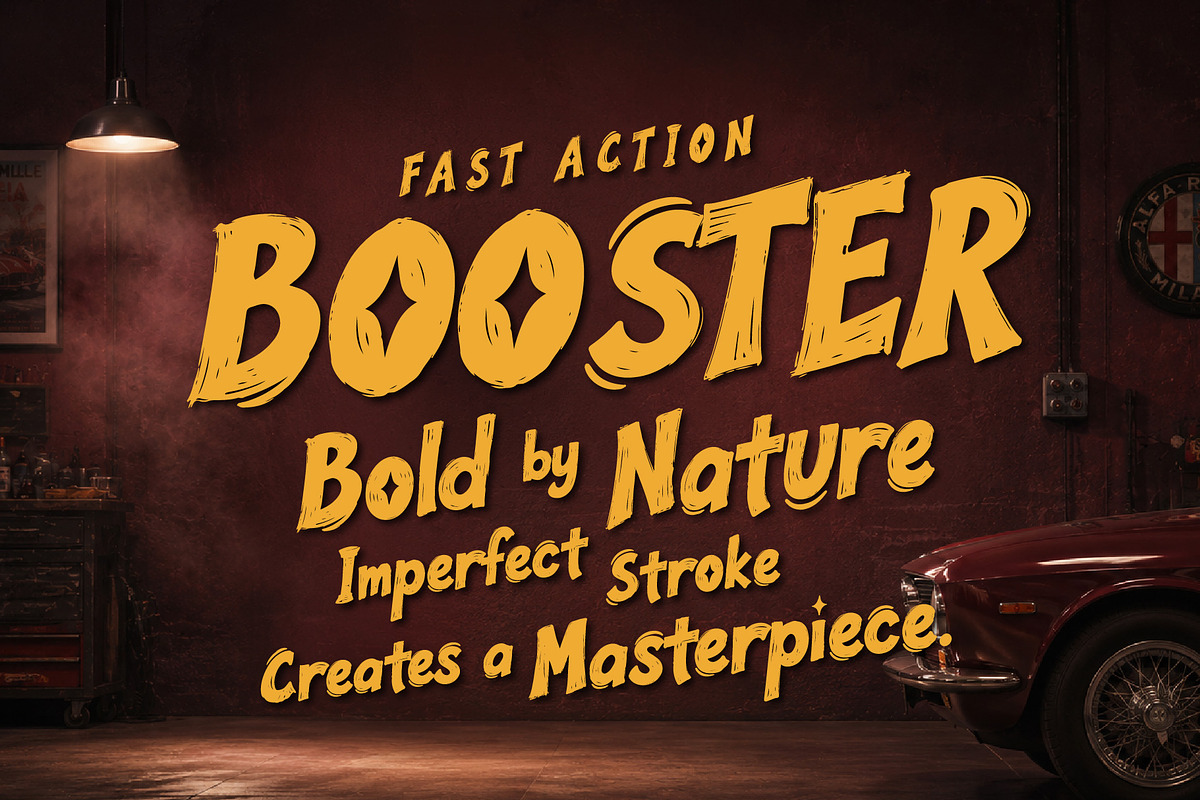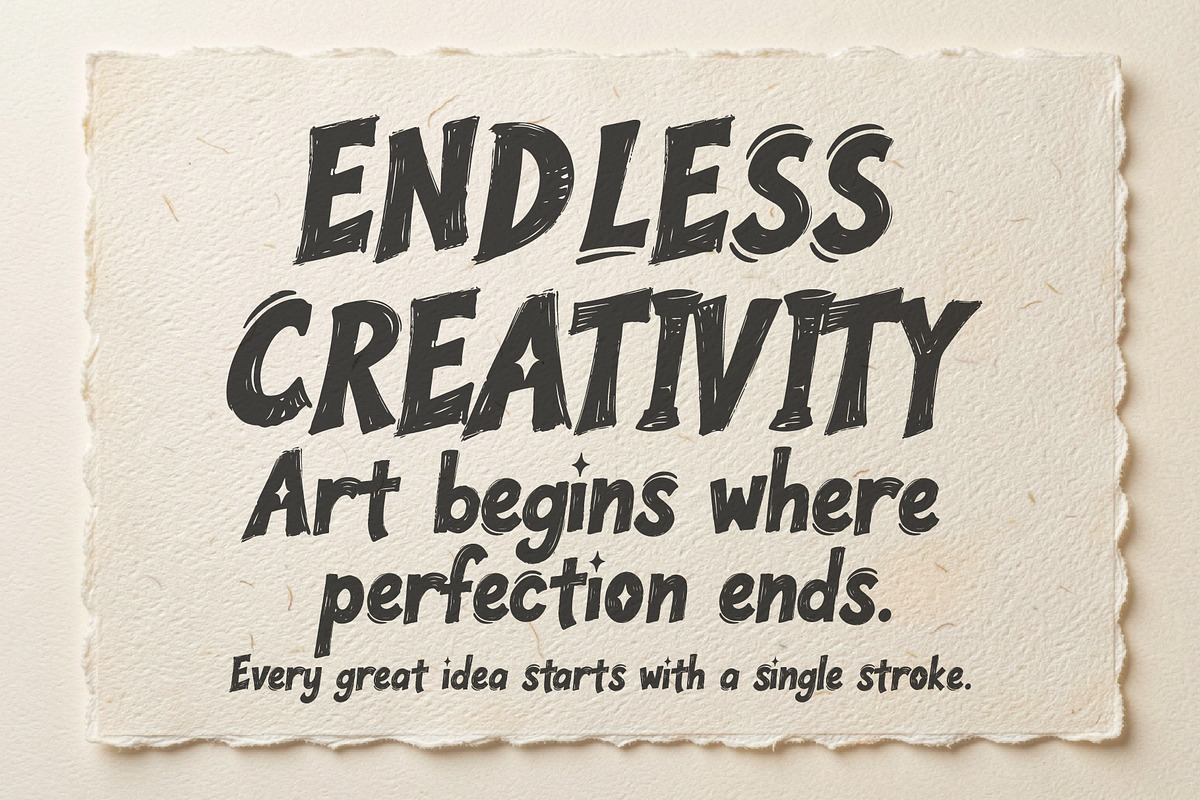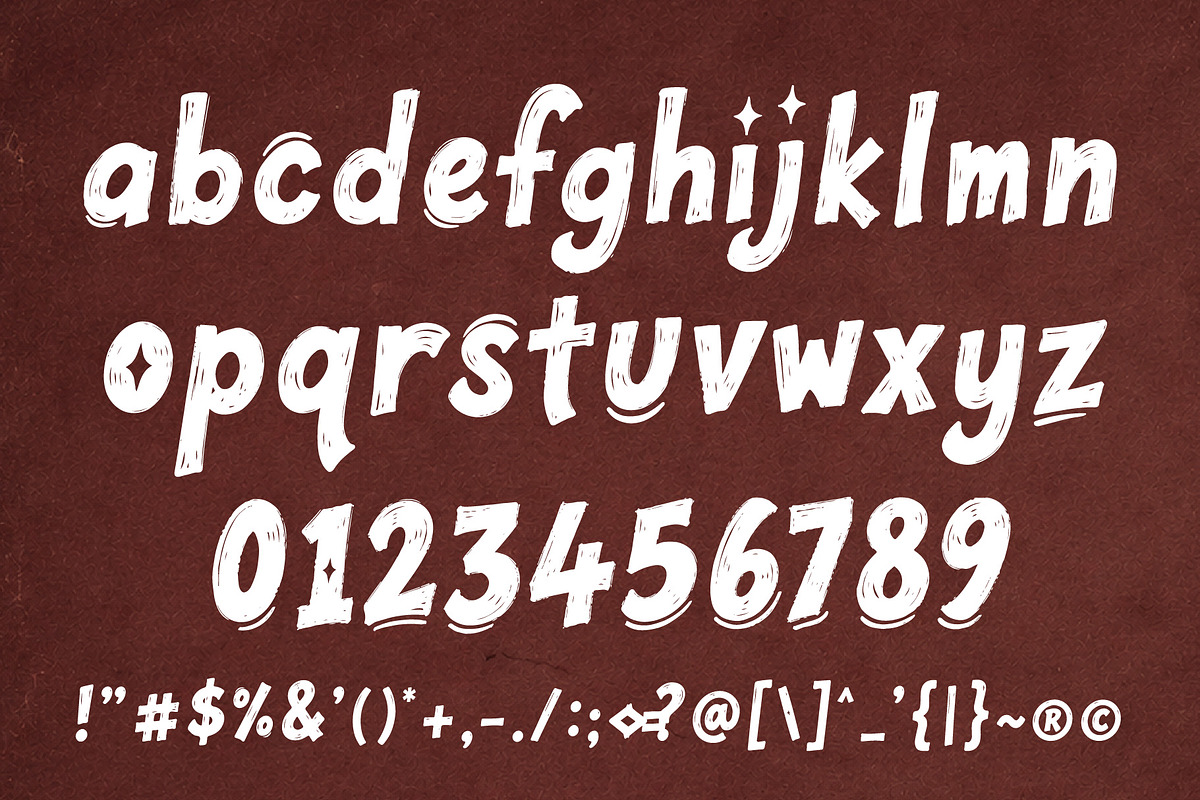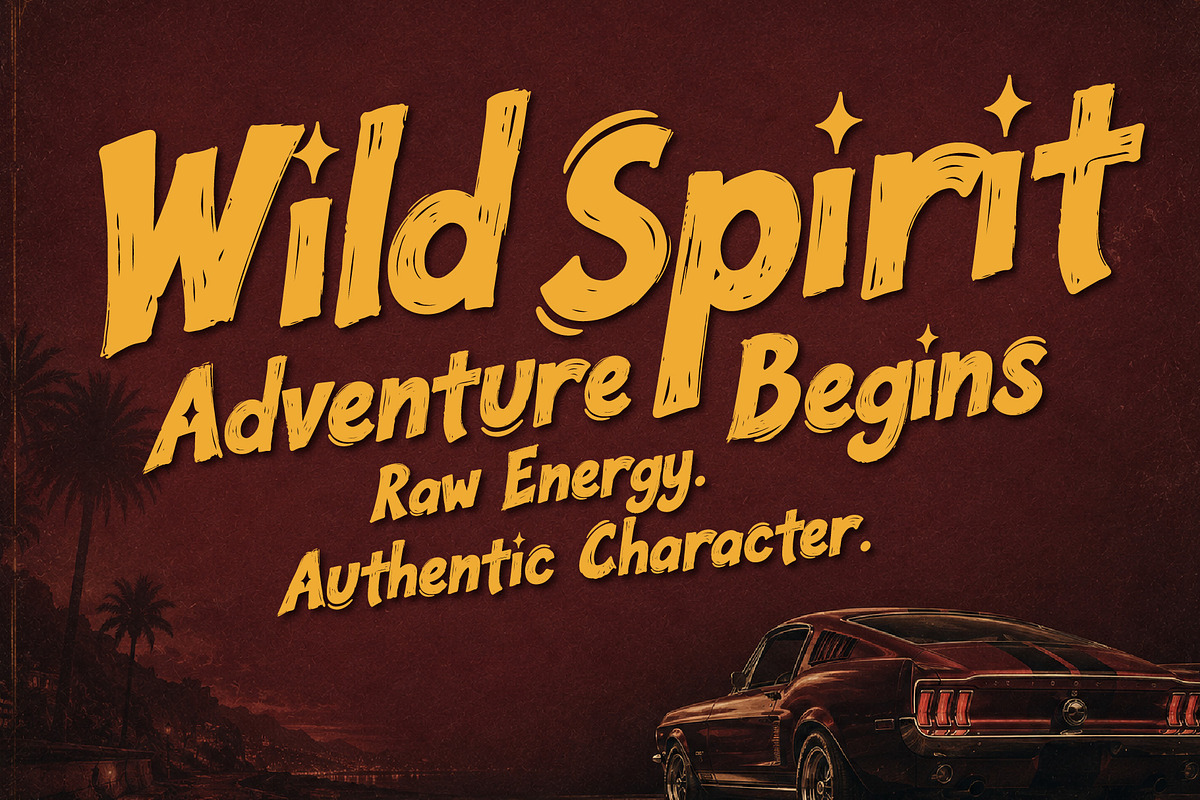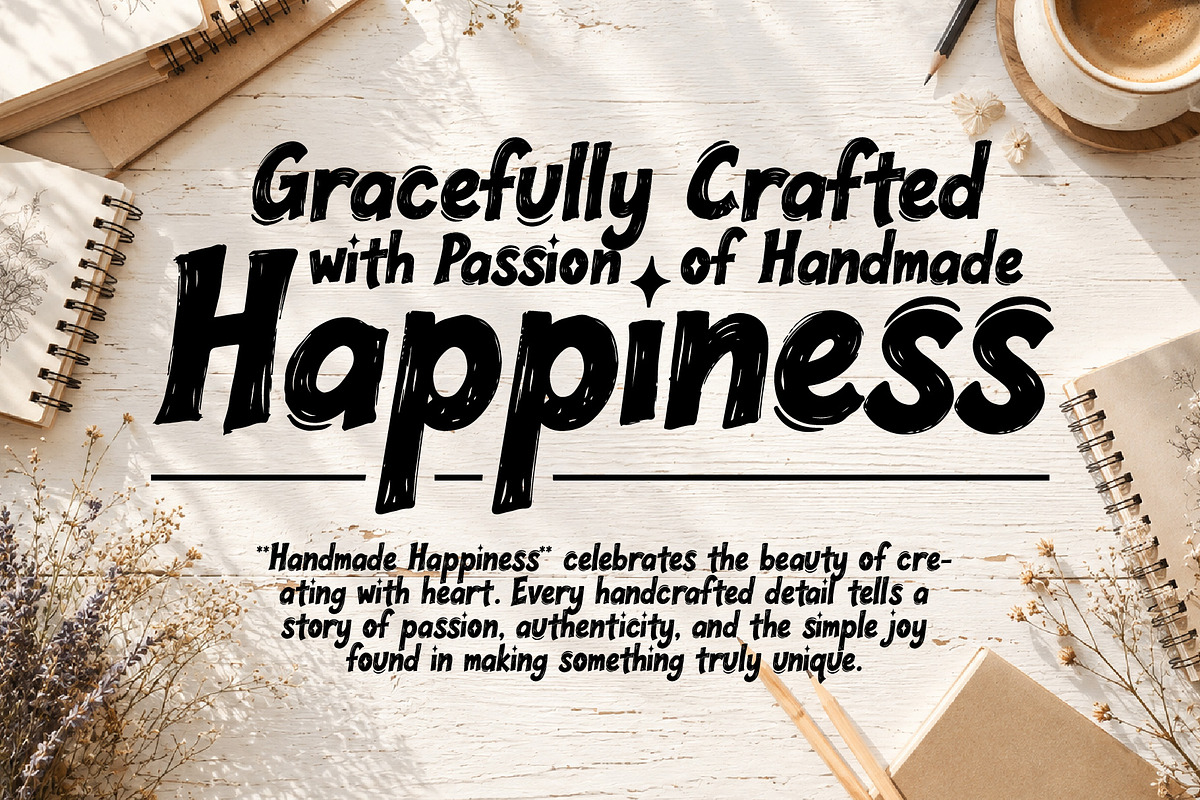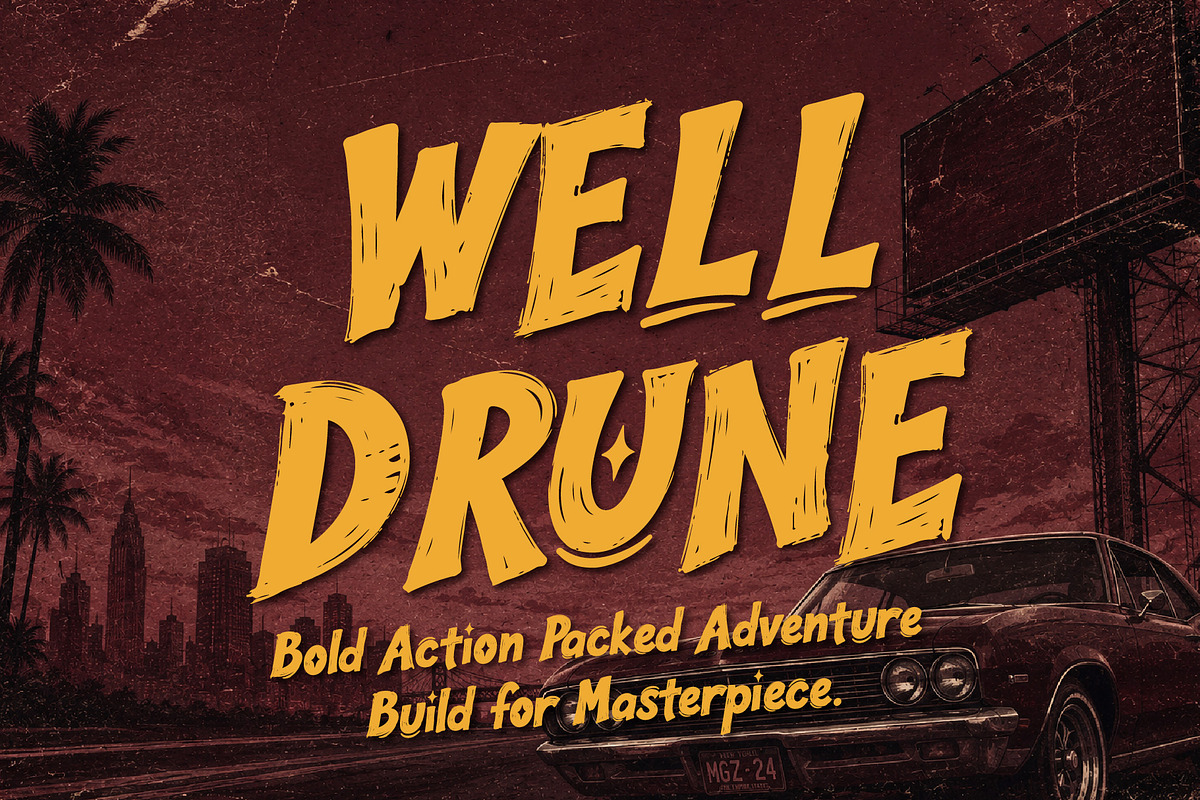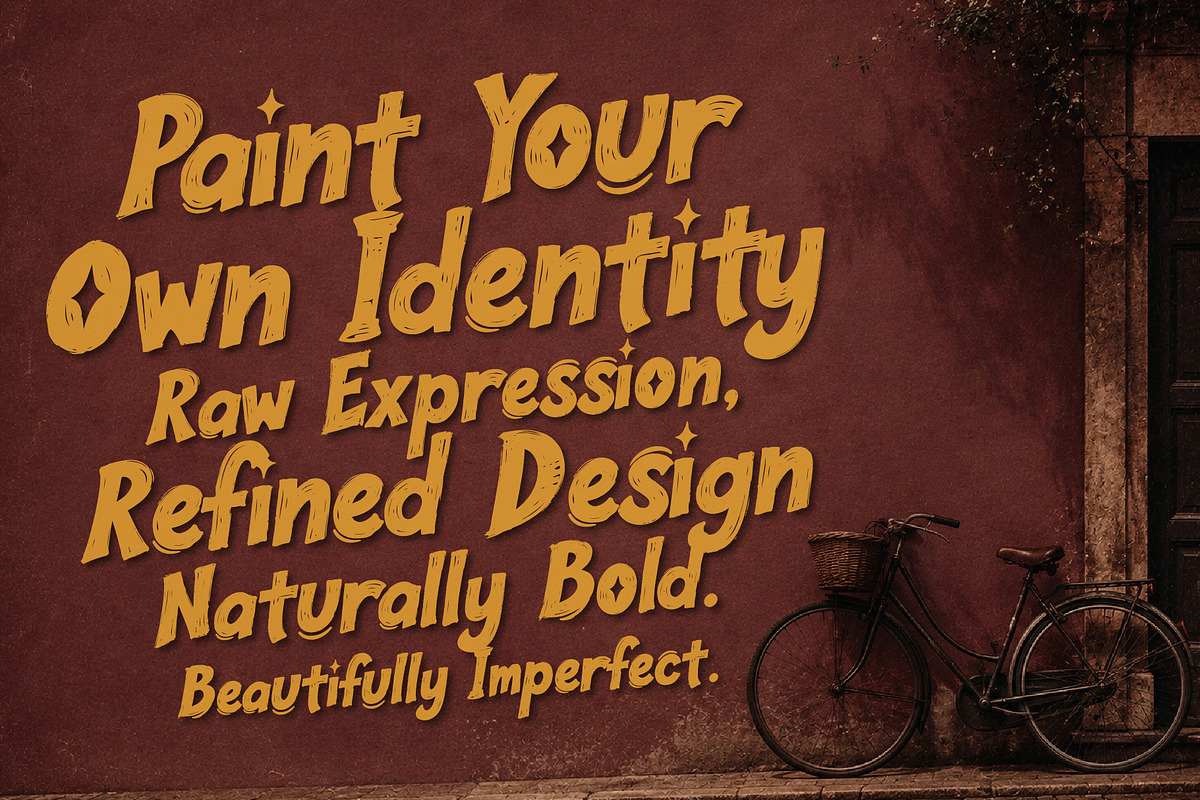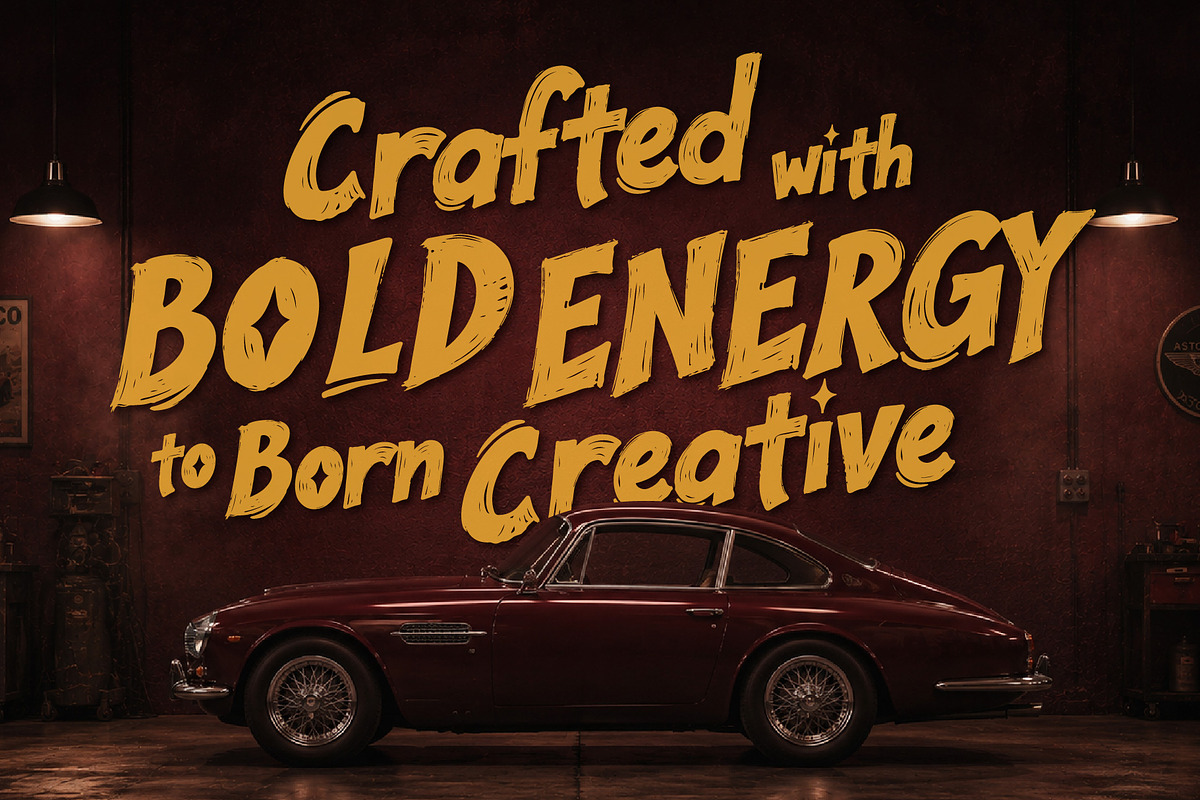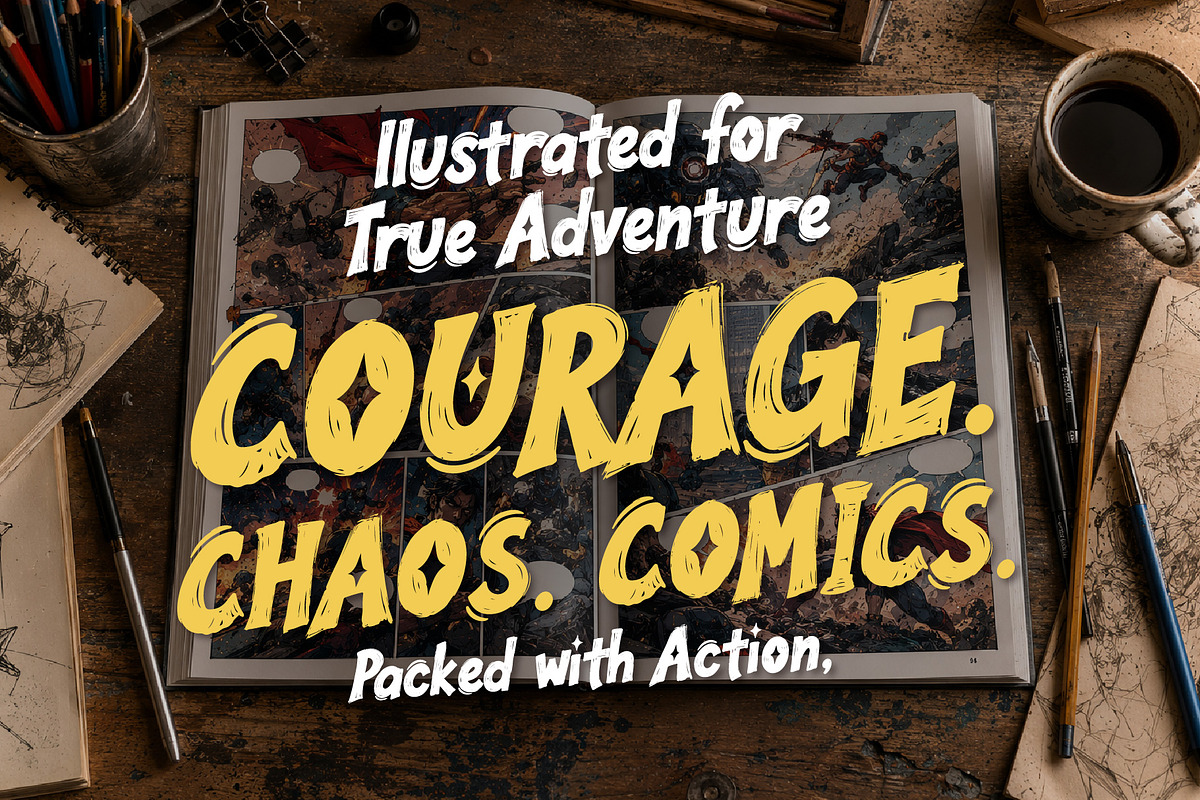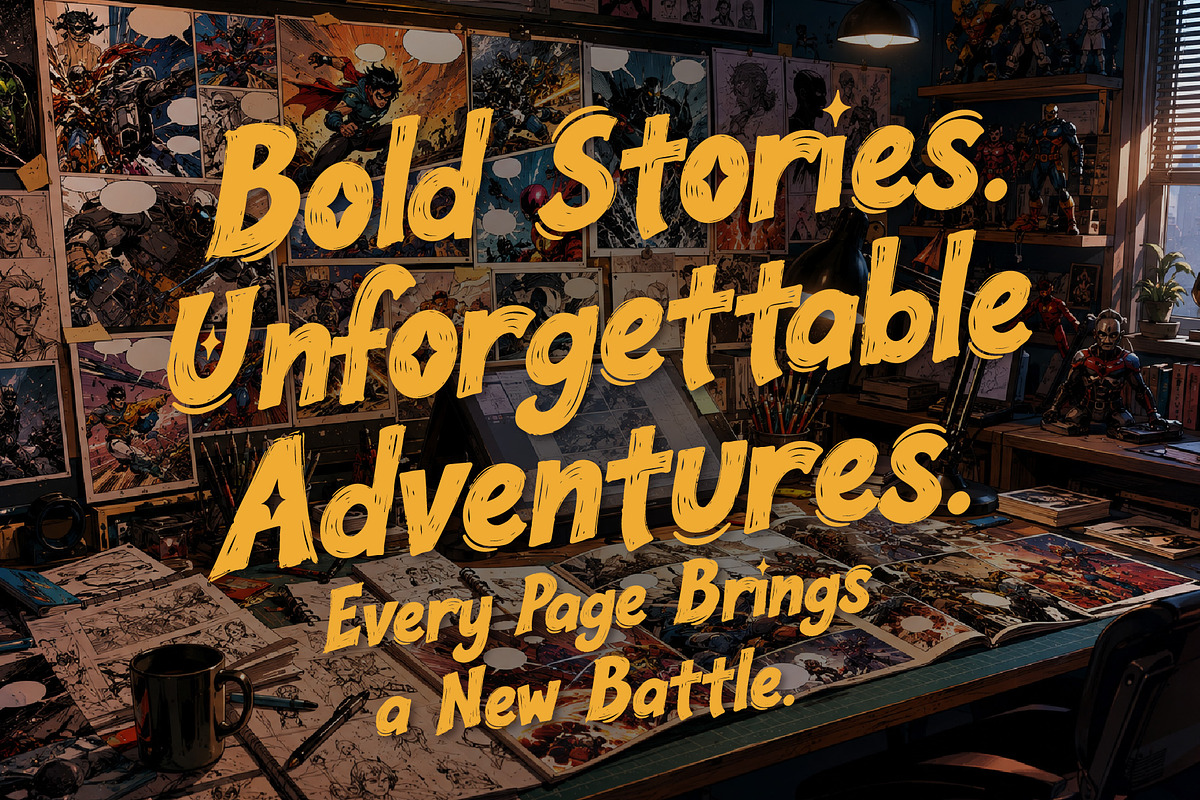
WELLDRUNE - Fearless Bold Stories
Welldrune is a bold handcrafted display font inspired by expressive brush strokes and authentic hand-painted lettering. Featuring a slightly distressed texture, each character brings raw energy, movement, and personality to your designs. Its dynamic strokes and handcrafted appearance make it ideal for bold headlines that demand attention.